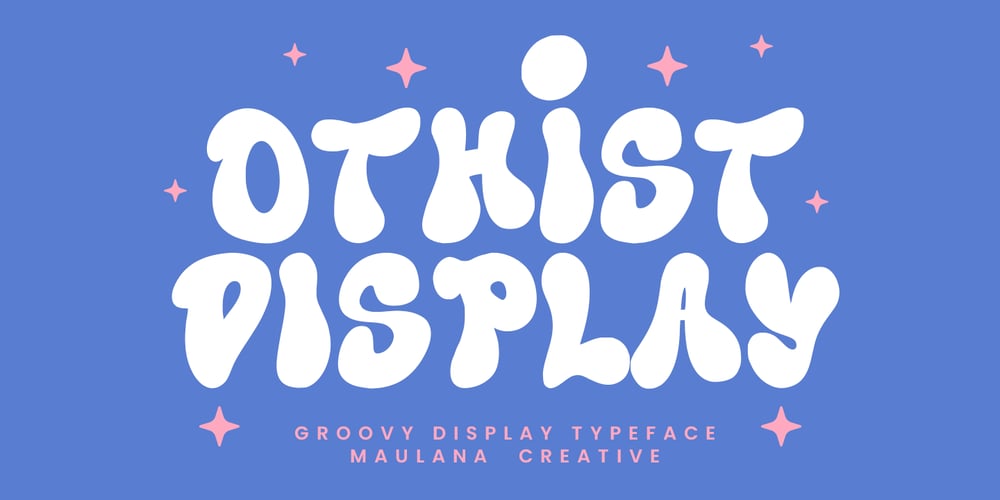
Othist
Othist font
Othist Font Family was designed by Gilang Maulana and published by Maulana Creative. Othist contains 1 styles and family package options. Othist Groovy display typeface. With three weight stroke, fun character with a bit of ligatures. To give you an extra creative work. Othist Groovy display typeface support multilingual more than 100+ language. This font is good for logo design, Social media, Movie Titles, Books Titles, a short text even a long text letter and good for your secondary text font with sans or serif. Make a stunning work with Othist Groovy display typeface.- Uppercase Cheers,Maulana Creative